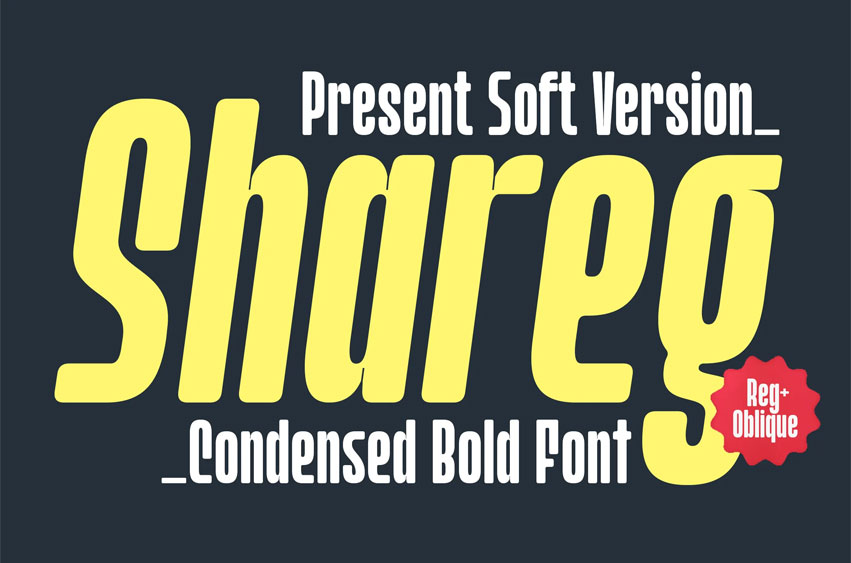
Shareg Soft Font
Shareg Soft Font is a bold with soft cutting edge and condensed sans-serif with a futuristic vibe, and its distinctive ink traps enhance both style and legibility, making it perfect for standout headlines, modern branding, and sharp editorial use.
• Available in 2 styles, regular and oblique